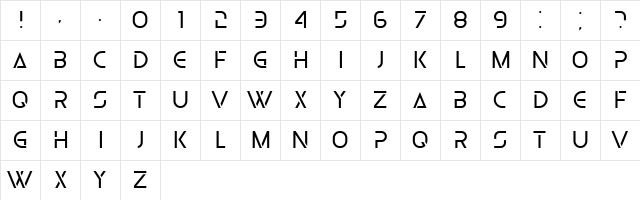
Olga Light
Design Context for Olga Typeface
Olga takes a measured approach to typography — its balanced proportions and neutral character make it a reliable workhorse for both digital and print work. Its slender proportions lend an understated elegance to any composition.